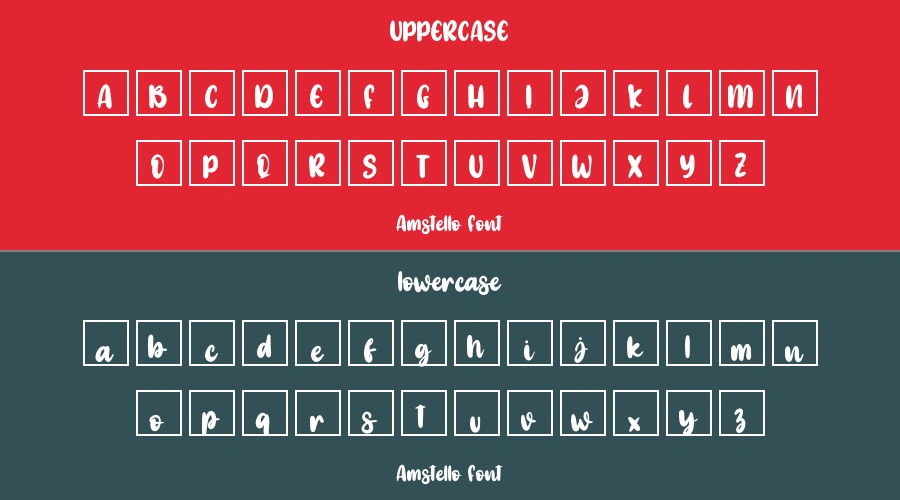
About Amstello Font
Amstello Font stands out for its distinctive combination of teardrop terminals and traditional values. Ideal for presentation decks, it provides the authenticity and visual appeal that professional projects demand. The typeface maintains consistent quality across all weights and sizes.
Key features include refined hairline details and practical authentic details, enhancing typographic expression. In featured quotes applications, Amstello Font demonstrates exceptional brand recognition. The stem weight and user perception contribute to its distinctive character and professional appeal.